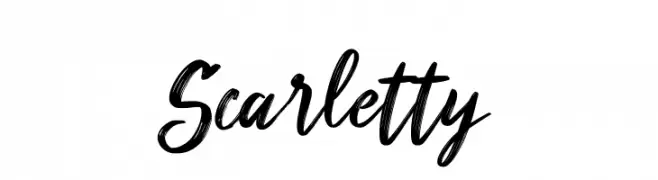
A dynamic, expressive script font with fluid, cursive strokes and varying thickness.
A bold, jagged font with a spooky, distressed style.
A playful, hand-drawn font with bold, rounded characters and a whimsical style.
A bold, eerie font with vine-like extensions, perfect for spooky themes.
A playful, hand-drawn font with a whimsical, ghostly appearance.
A graceful and artistic script font with elegant loops and flourishes.
A bold, jagged font with a chilling, horror-themed aesthetic.
A diverse set of horror-inspired decorative display fonts with dramatic and eerie styles.
A dynamic, handwritten-style font with expressive, fluid strokes.
A spooky, dripping font ideal for Halloween themes.